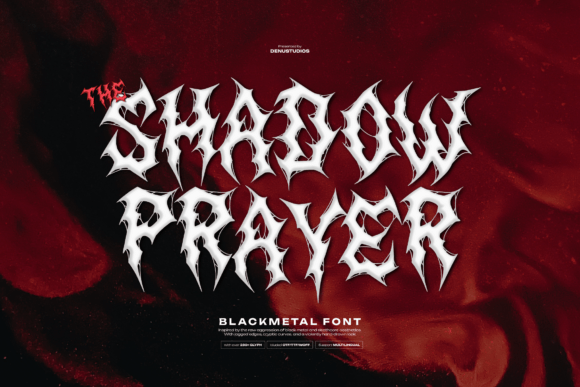
Shadow Prayer: A Font with a Fierce Gothic Edge
Typography plays a crucial role in how we perceive and interact with visual content. The right font can elevate your message, reinforce your brand’s personality, or even set the mood for an entire design. For those seeking a bold, dark, and unapologetically edgy typeface, Shadow Prayer, crafted by Denustudios, is a compelling choice. This premium display font captures the essence of black metal culture through its razor-sharp curves, jagged outlines, and haunting visual presence.
What Makes Shadow Prayer Unique?
At first glance, Shadow Prayer feels like it was born from the shadows—literally. Designed to embody raw intensity and dark mystique, it’s not just a font; it’s a statement. Each character is meticulously sculpted with a balance between aggression and artistry. Think of it as the visual equivalent of a thunderous guitar riff or a growl echoing through a cavernous venue.
The font's sharp angles and dramatic weight variations make it stand out immediately. Unlike more traditional serif or sans-serif fonts, Shadow Prayer doesn’t blend into the background. It’s a typeface that demands space and attention, making it ideal for high-impact use cases where subtlety isn't the goal.
With PUA-encoded characters, users gain access to a wide range of glyphs and alternates without needing advanced software. This makes the font accessible for both seasoned designers and hobbyists looking to add some fierce flair to their projects.
Why Designers Are Drawn to Shadow Prayer
Shadow Prayer appeals to creatives who want to break free from conventional typography. Its gothic-inspired style brings a sense of rebellion and individuality to any project. Whether you're designing a music album cover, a merchandise line, or promotional materials for a dark-themed event, this font delivers a level of authenticity and energy that few others can match.
Its jagged outlines and uneven strokes give it a handmade quality, yet the precision in spacing and alignment ensures it remains functional when used correctly. While it may not be suitable for long-form text due to its complexity, it shines brightest when used strategically for headlines, logos, and accents.
Where Shadow Prayer Works Best
This font is incredibly versatile when it comes to application. Here are a few key areas where Shadow Prayer truly excels:
One standout feature is its adaptability across mediums. Print and digital applications respond well to its structure, though adjustments in size and spacing may be necessary depending on the context.
Real-World Examples
Imagine a horror-themed apparel brand launching a new collection inspired by ancient myths. Using Shadow Prayer for the collection name and taglines would immediately establish a tone of mystery and power. Similarly, a record label promoting a new black metal album could use this font for the title track to evoke the genre’s signature intensity.
For a boutique candle company selling "eclipse" themed candles, incorporating Shadow Prayer into the branding could transform a simple logo into something evocative and memorable. The same applies to event invitations for underground concerts or fan meetups—this font sets the stage for a night of immersive experience.
How Shadow Prayer Influences Brand Perception
Typefaces aren't just about aesthetics—they shape how audiences see your brand. Shadow Prayer, with its dark and powerful vibe, communicates themes of rebellion, strength, and exclusivity. It’s particularly effective for brands targeting mature, niche audiences who value authenticity and edge over minimalism.
In terms of brand identity, the font supports consistency by offering multiple glyph options and stylistic alternates. This allows you to maintain a cohesive look while introducing subtle variation to keep things visually engaging.
From a marketing perspective, using such a distinctive font can increase audience engagement. People connect emotionally with visuals that reflect their values or interests. If your audience gravitates toward gothic, metal, or alternative lifestyles, Shadow Prayer can help you speak their visual language fluently.
Designing with Shadow Prayer: Tips and Tricks
While Shadow Prayer is a creative font that stands out, it requires thoughtful pairing to avoid overwhelming other design elements. Here are some practical recommendations:
1. Font Pairing: Combine it with a clean, modern sans-serif for balance. A minimalist secondary font helps guide the viewer through the design while letting Shadow Prayer dominate the focal points.
2. Use Sparingly: Due to its complexity, reserve it for headlines, logos, or short phrases. Overuse can lead to clutter and reduce readability.
3. Test Readability: Before finalizing a design, test how the font looks at various sizes and distances. Especially in web design, ensuring it remains legible on mobile devices is essential.